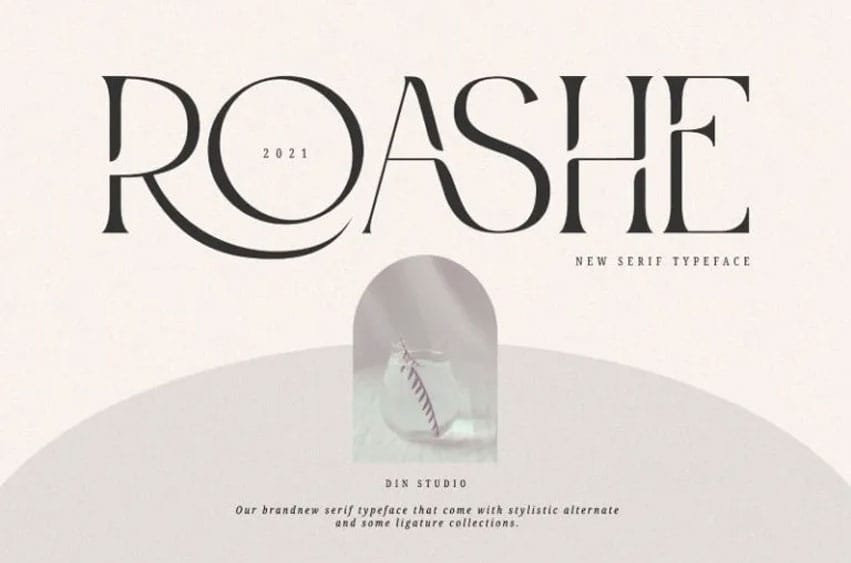
Roashe Font is one of the most beautiful, elegant yet robust fonts on the market today. Roashe was designed to present a contemporary yet elegant appearance of any typeface you create; featuring all uppercase characters for easy usage when posters, titles branding or logos need to be created. It is perfect for posters, titles branding logos and more!
Roashe provides Multilingual Support that makes your brand’s message accessible worldwide. Impress your guests or customers with it’s elegant font!